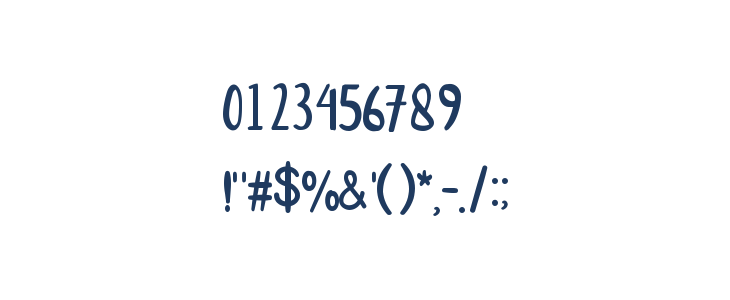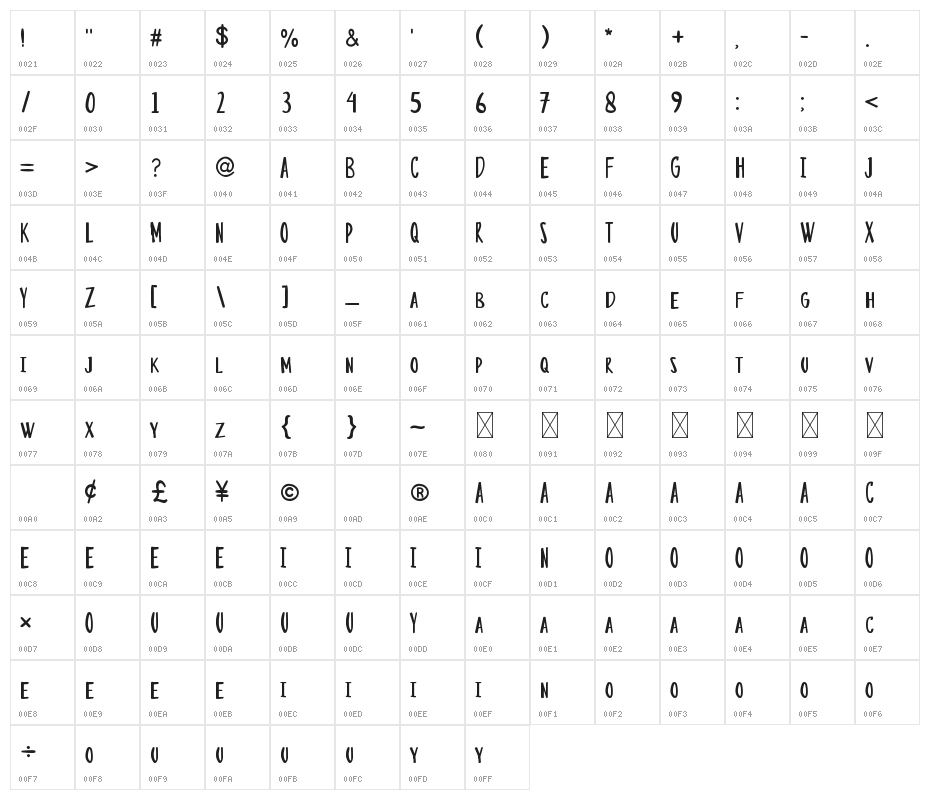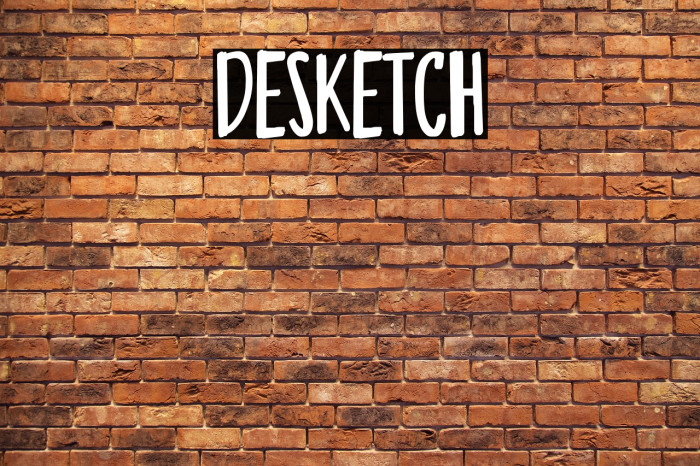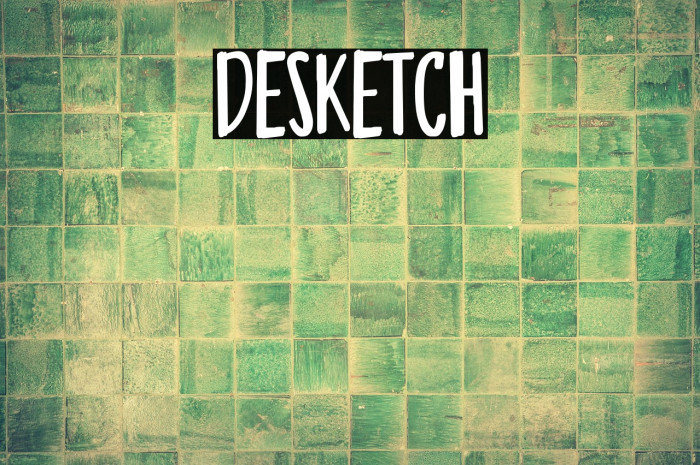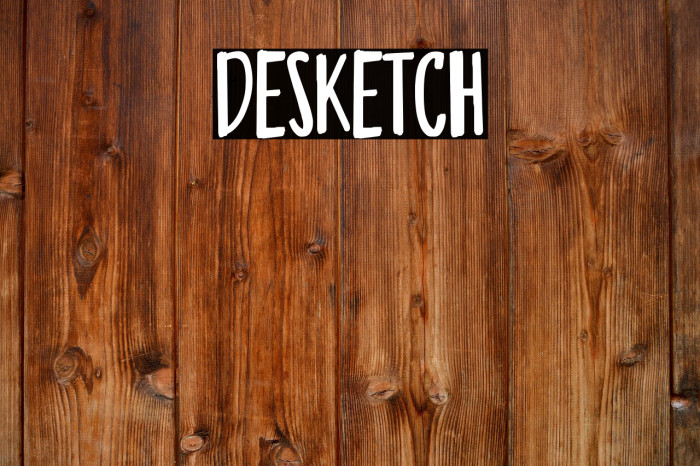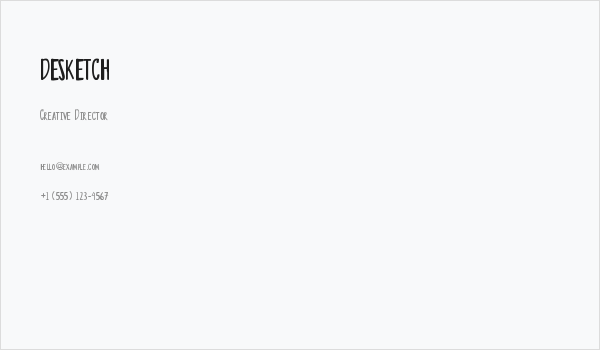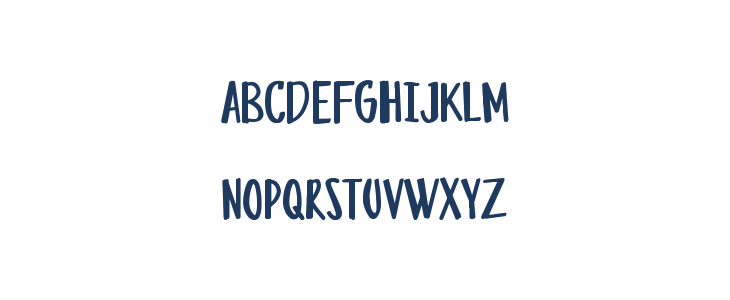
DESKETCH Font
DESKETCH Description
This font features a playful and informal style with a hand-drawn appearance. The letters are slightly irregular, giving it a casual and friendly vibe. The uppercase and lowercase characters maintain a consistent style, with rounded edges and varying stroke widths that add to its whimsical charm. The numerals and special characters follow the same design principles, ensuring a cohesive look throughout. This font is ideal for projects that require a touch of personality and creativity, such as children's books, greeting cards, or playful branding.
| Proposed Projects | Ideal for children's books, greeting cards, playful branding, and creative projects. |